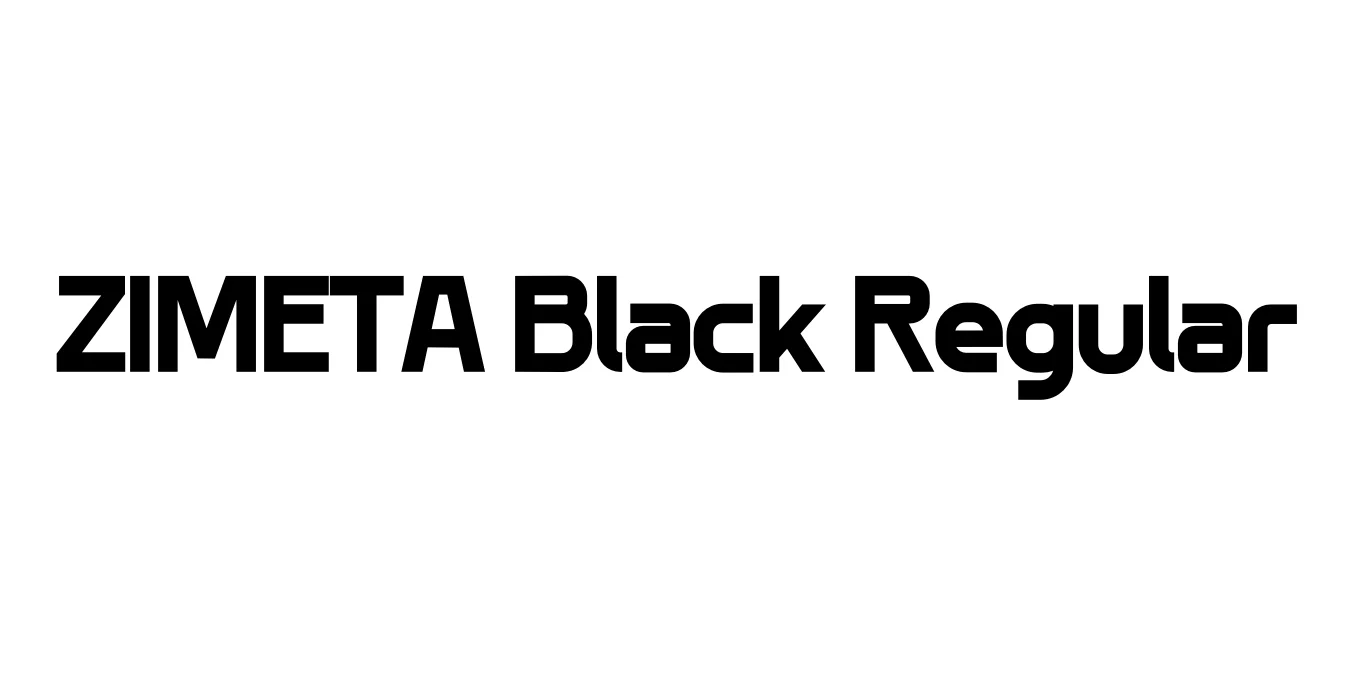
ZIMETA Black Regular
Designed by Alit Suarnegara (Alit Design)
ZIMETA Black Regular is a striking display typeface crafted by the renowned studio Alit Design. Known for its bold and authoritative presence, this font combines modern geometric precision with elegant curves, making it an ideal choice for high-end visual communication. The heavy weight of the 'Black' variant ensures that any text stands out prominently, providing a foundation of strength and luxury for professional design projects.
Originally developed to meet the demands of contemporary branding, ZIMETA excels in large-scale applications where legibility and personality are paramount. Its unique character shapes and clean terminals offer a fresh take on traditional display styles, allowing designers to create impactful headlines, sophisticated logos, and compelling editorial layouts. It is a versatile tool for those looking to infuse their work with a sense of modern sophistication.
ZIMETA Black Regular Best Uses
Perfect for creating strong, memorable, and high-impact brand identities.
Ideal for magazine headlines and large-scale article titles that need to command attention.
Excellent for bold promotional graphics and Instagram-ready typography.
Adds a premium and modern feel to product boxes and labels.